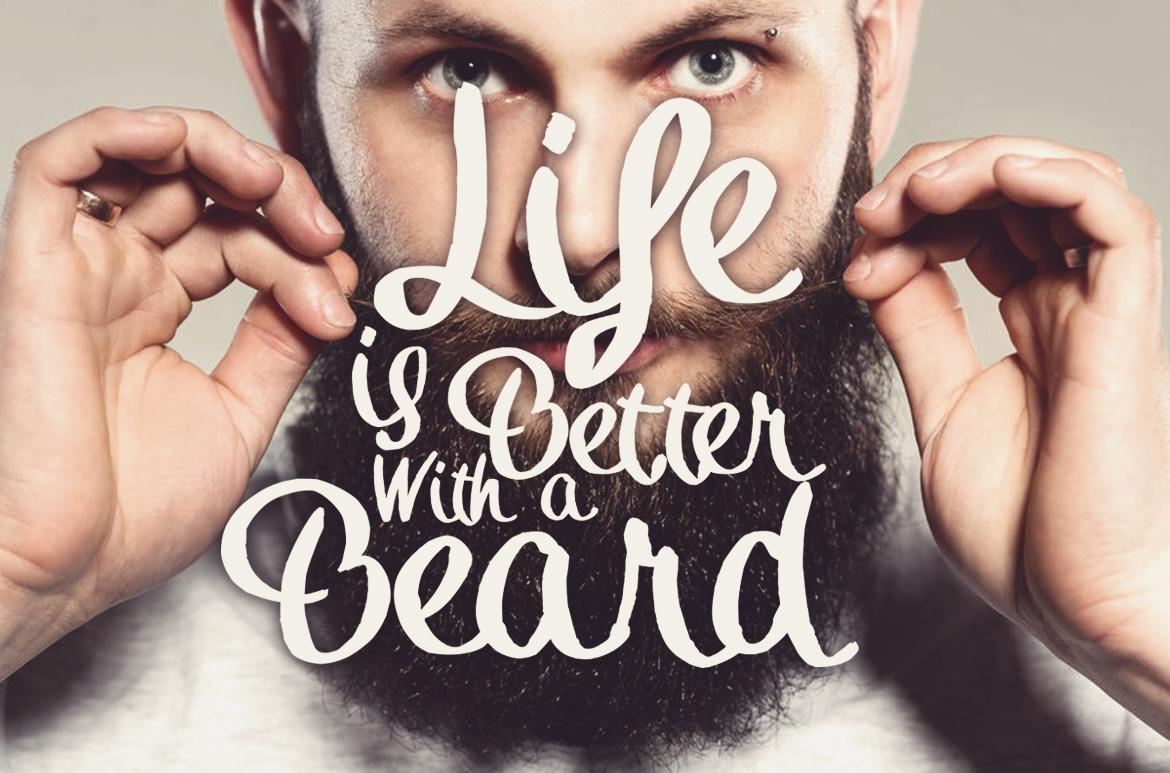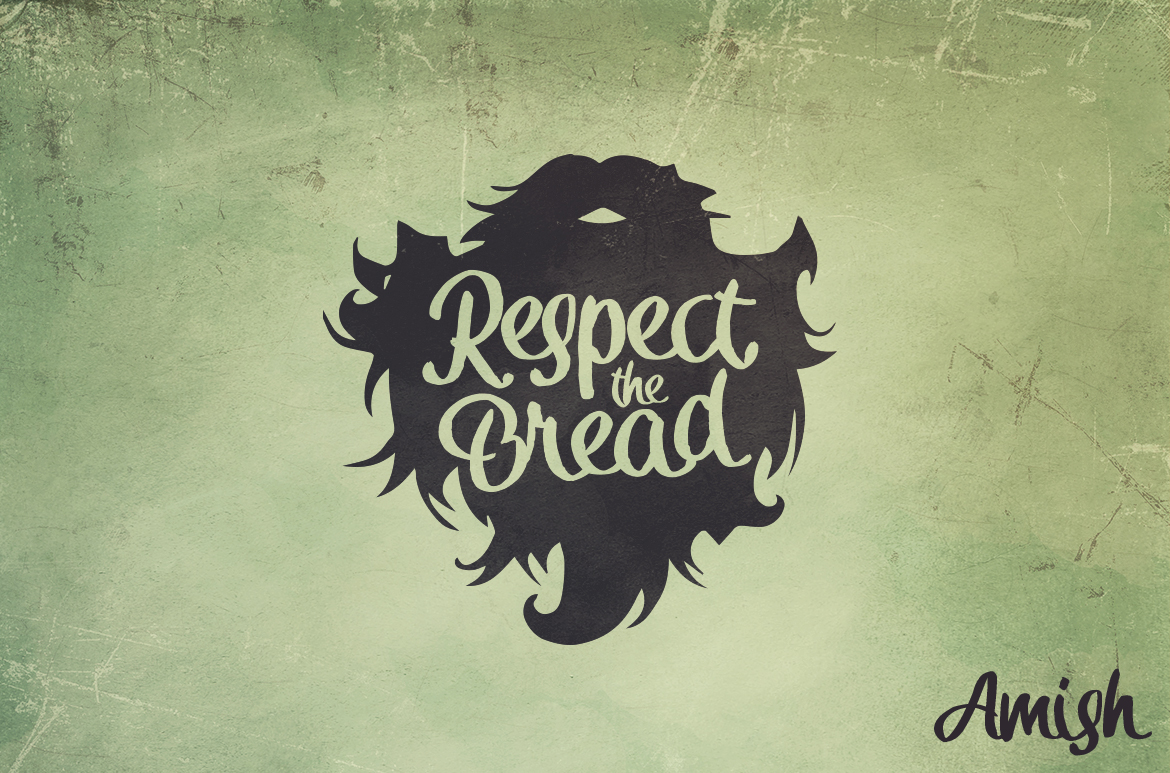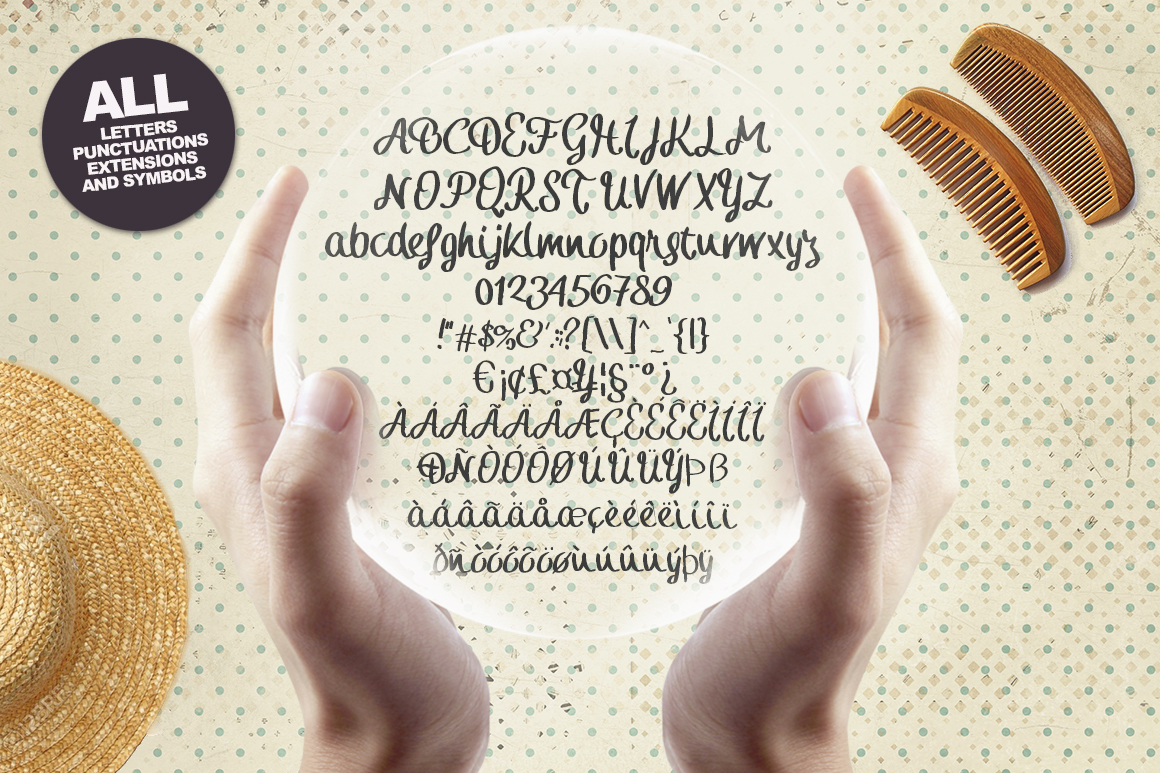
HomeScript FontsAmish Font Script Fonts Amish Font FacebookXPinterestWhatsApp Amish Font Poster 2 Amish Font Poster 3 Amish Font Poster 4 About Amish Font The Amish font is a beautiful thick marker handwritten script font. DOWNLOAD ON CREATIVE FABRICAThis font is sold and delivered by Creative Fabrica. Font Canyon may earn a commission if you buy through this link. People also explored Morning Holiday Lf Font Soegja Font Homeday Font Spidole Font Sanford Region Font Platina Script – Rough Font Patterson Southern Font Pastel Font Mahligai Font 575 0 TagsAmish Font Previous articleBeer FontNext articleAZ Ultra Font LEAVE A REPLY Cancel reply Comment: Please enter your comment! Name:* Please enter your name here Email:* You have entered an incorrect email address! Please enter your email address here Website: Save my name, email, and website in this browser for the next time I comment. Personal Use Free Happy Rabbit Personal Use Free Read more about this font 1313 Mockingbird Lane Personal Use Free Read more about this font Carnivals Personal Use Free Read more about this font Hello Ketta Personal Use Free Read more about this font BLOG Free Fonts Risk: Why Free Fonts Can Be Dangerous for Designers Free Fonts Risk: Why Free Fonts Can Be Dangerous for Designers Using free fonts is a common practice in web and graphic design. However, the... Free vs Paid Fonts: Why Investing in Premium Fonts Is Worth It Top 10 Handwritten Fonts That Elevate Your Designs Modern Sans-Serif Fonts That Brands Love in 2025